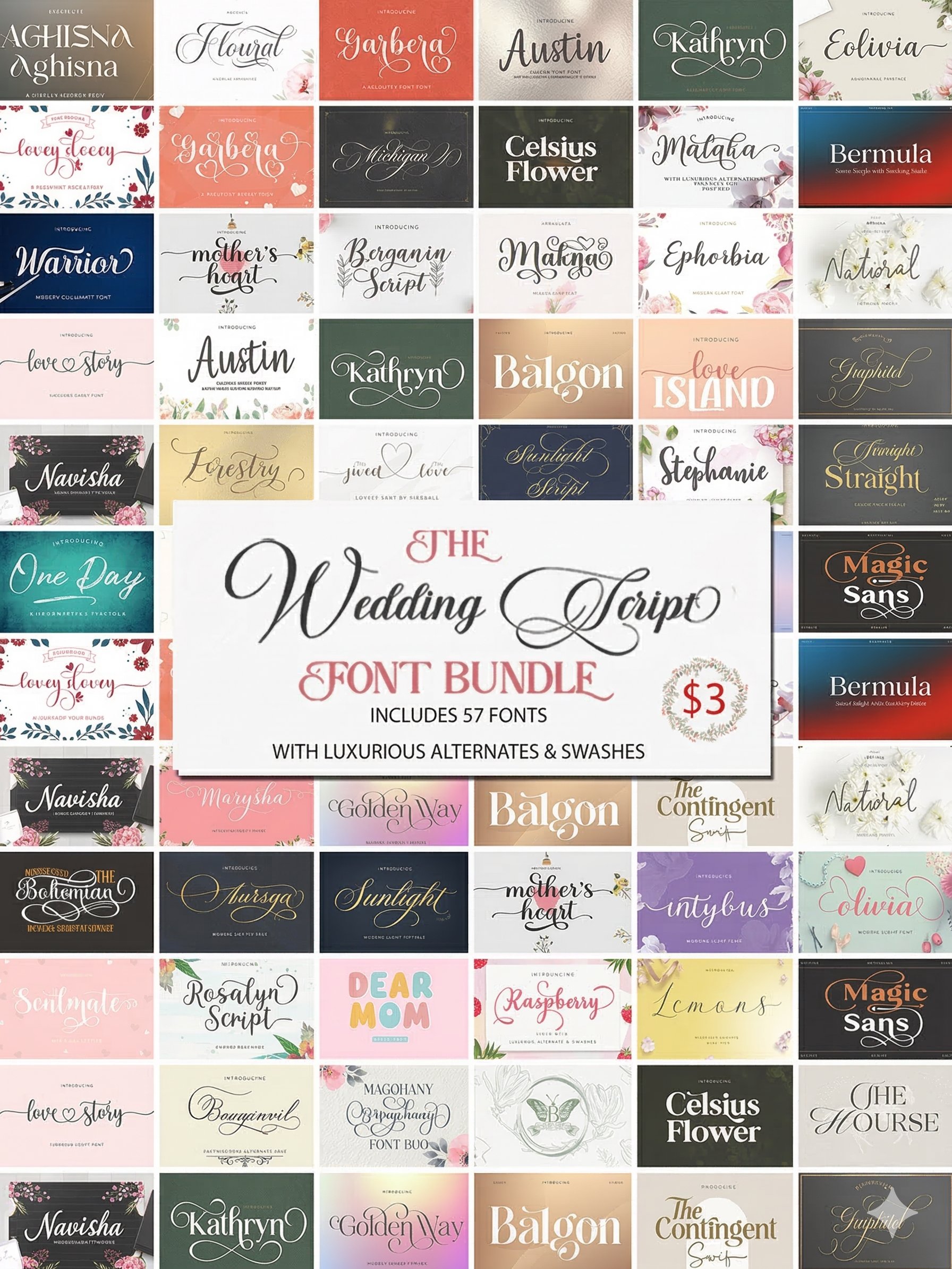
The Wedding Script Font Bundle – 57 Luxury Calligraphy & Wedding Fonts
Elevate your designs with The Wedding Script Font Bundle, a curated collection of 57 premium fonts designed to bring elegance, romance, and professional flair to your creative projects.
Whether you are designing high-end wedding invitations, branding a luxury business, or creating social media content, this bundle offers the perfect typography for every occasion.
What’s Included?
• 57 Unique Fonts: A massive variety ranging from sophisticated scripts to modern decorative serifs.
• Luxurious Alternates & Swashes: Many fonts include beautiful flourishes and extra characters to give your text a custom, hand-lettered look.
Featured Fonts in This Bundle:
• Aghisna, Bergania Script, Hello Valentina, Love Island, Mother’s Heart, Magnolia Duo, and 50+ others!